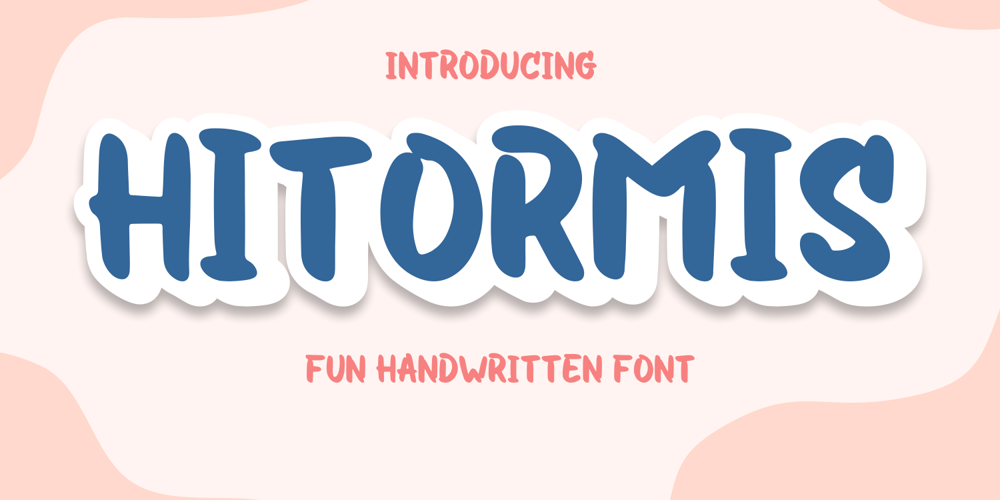
Hitormis Font Family was designed by ANGGI HERMAWAN and published by Forberas Club. Hitormis contains 1 styles and family package options. Hitormis is handwritten font with uppercase style. Recommended to use for wall art, children theme, funny theme, comics, cartoon, simple write, poster and display.